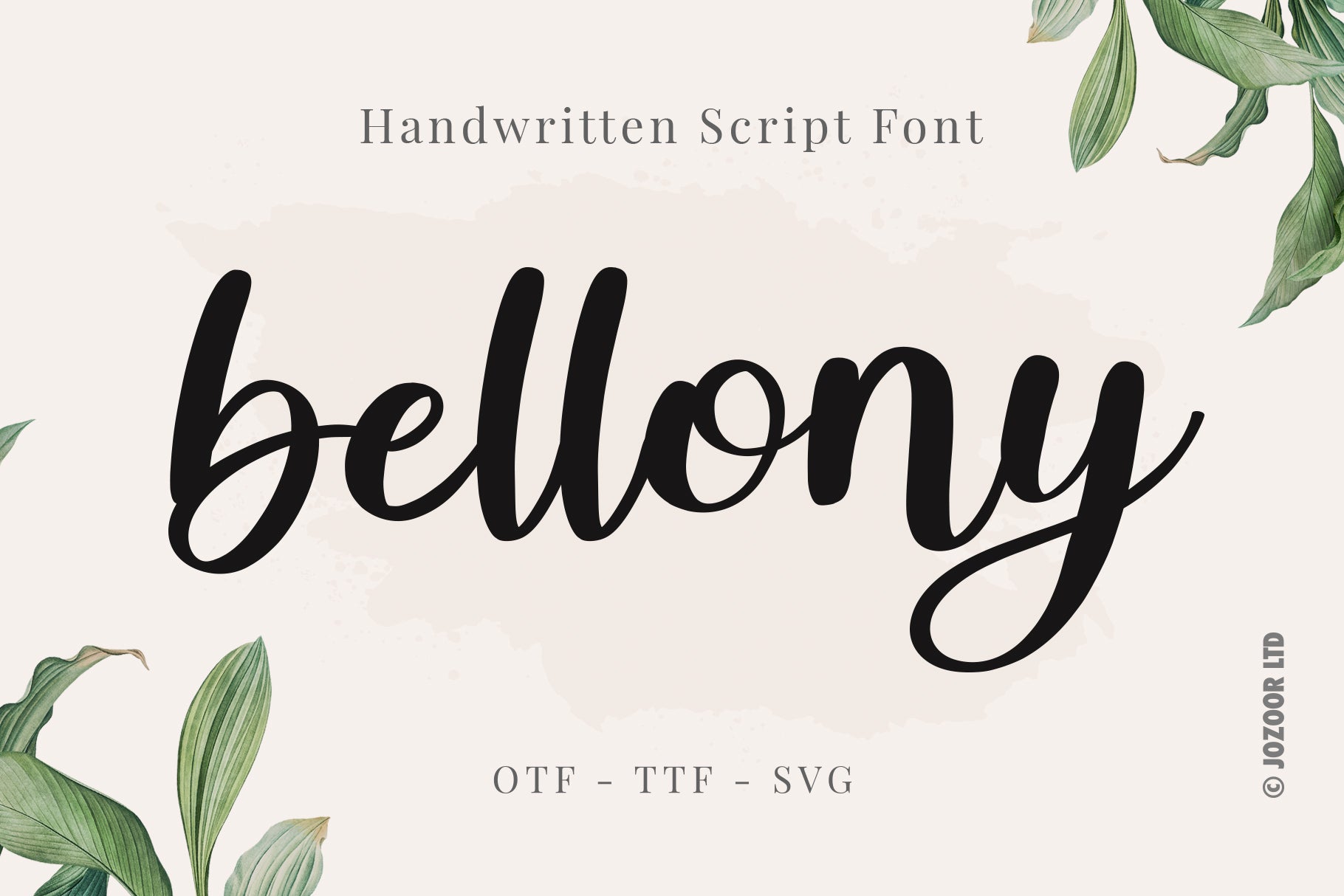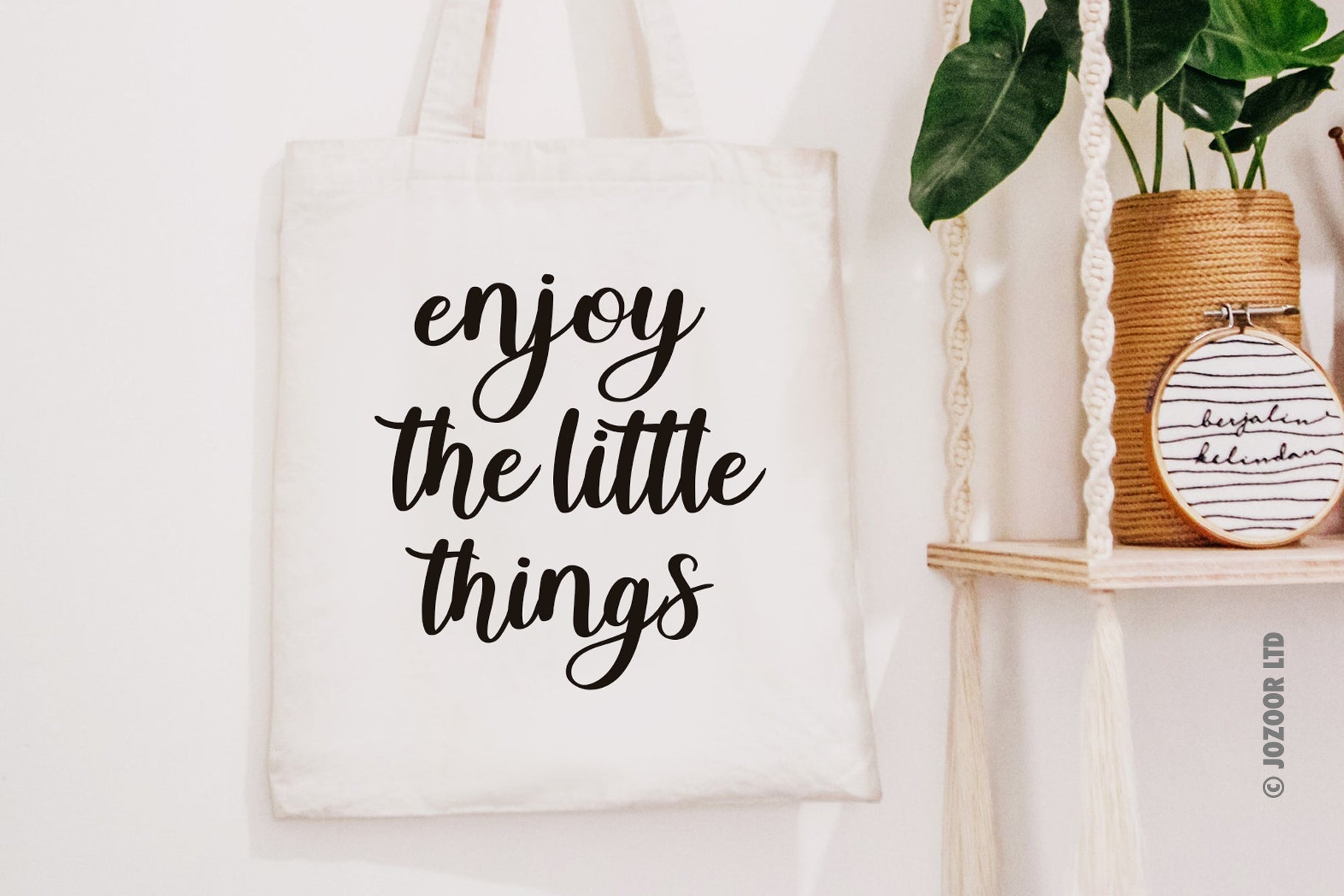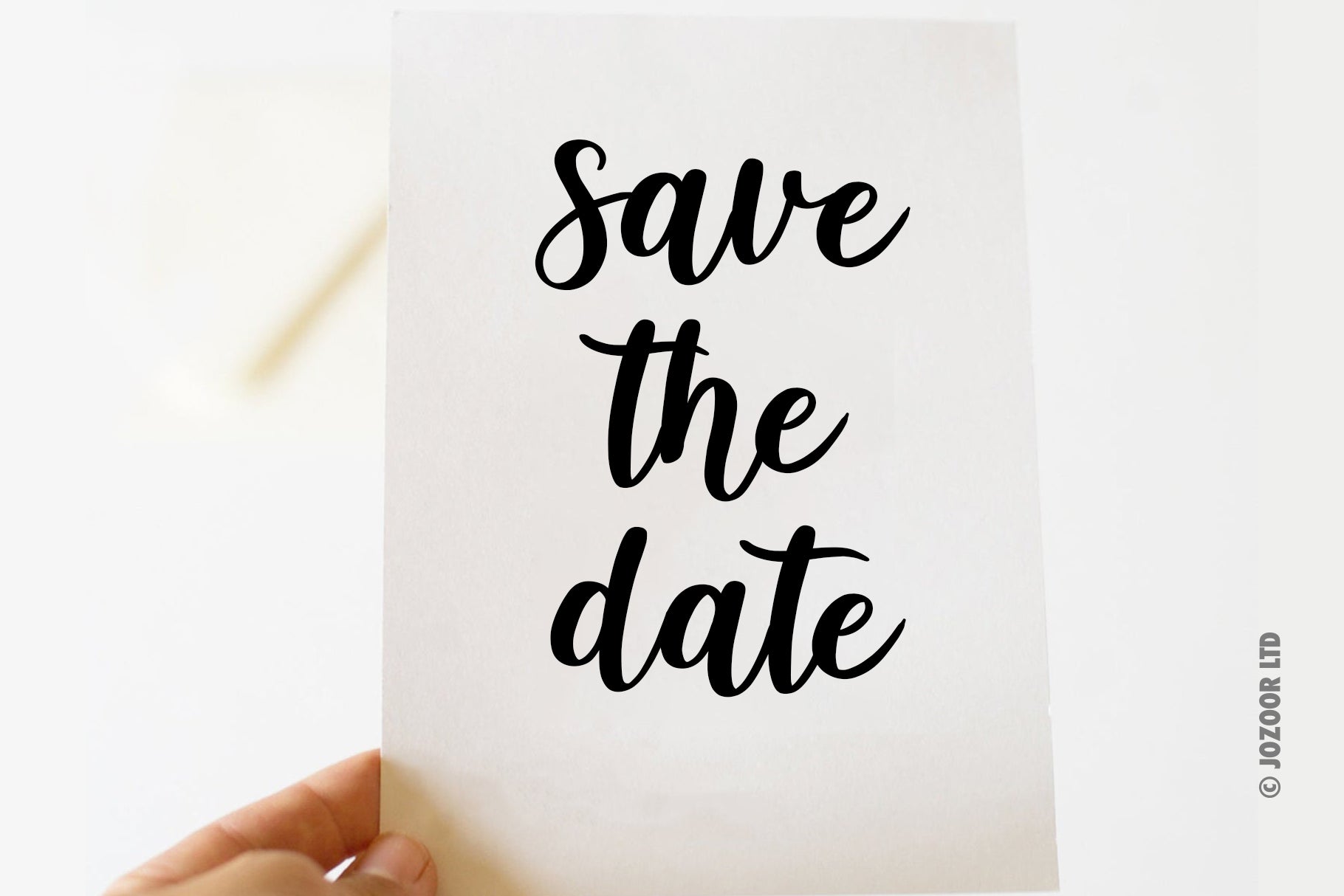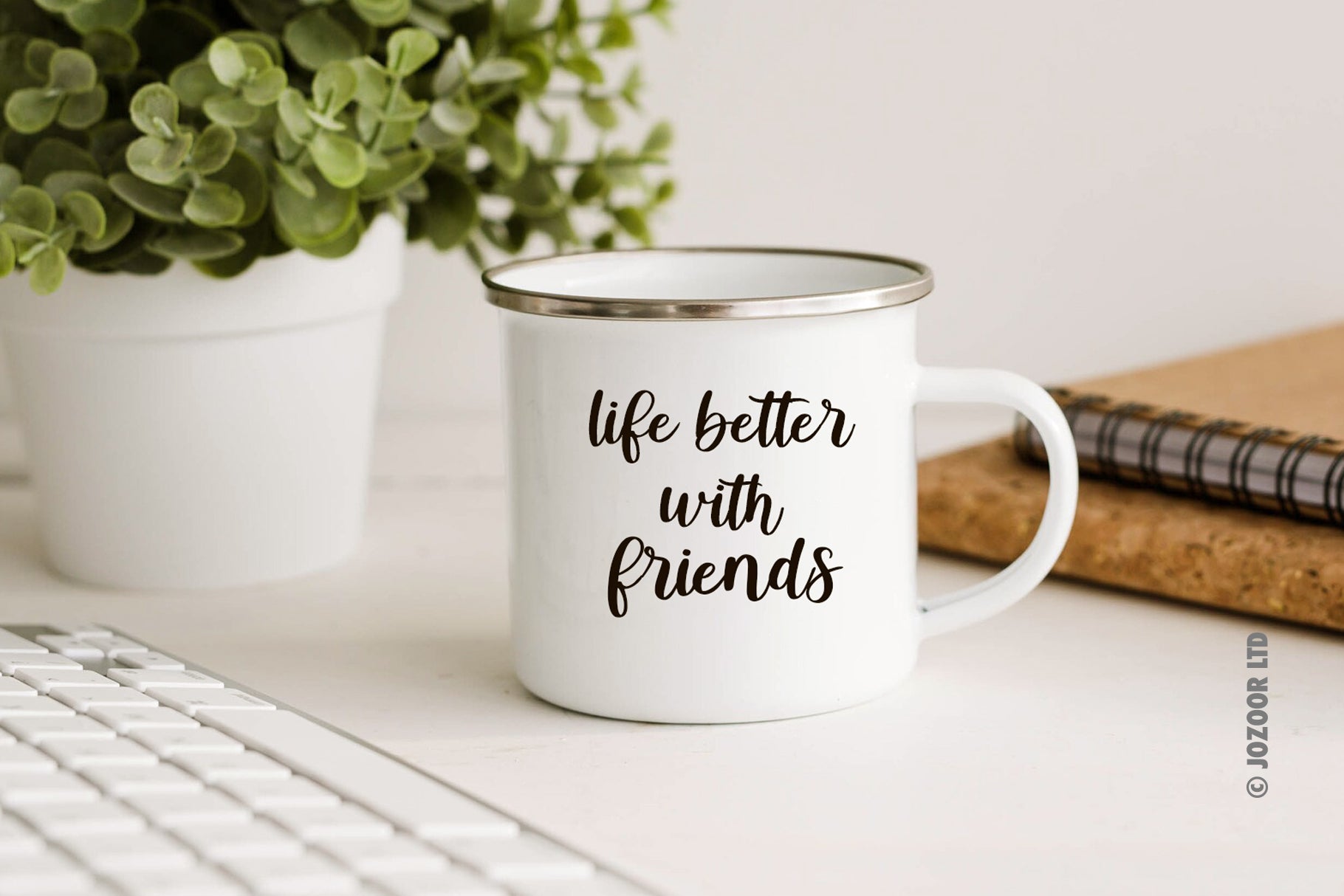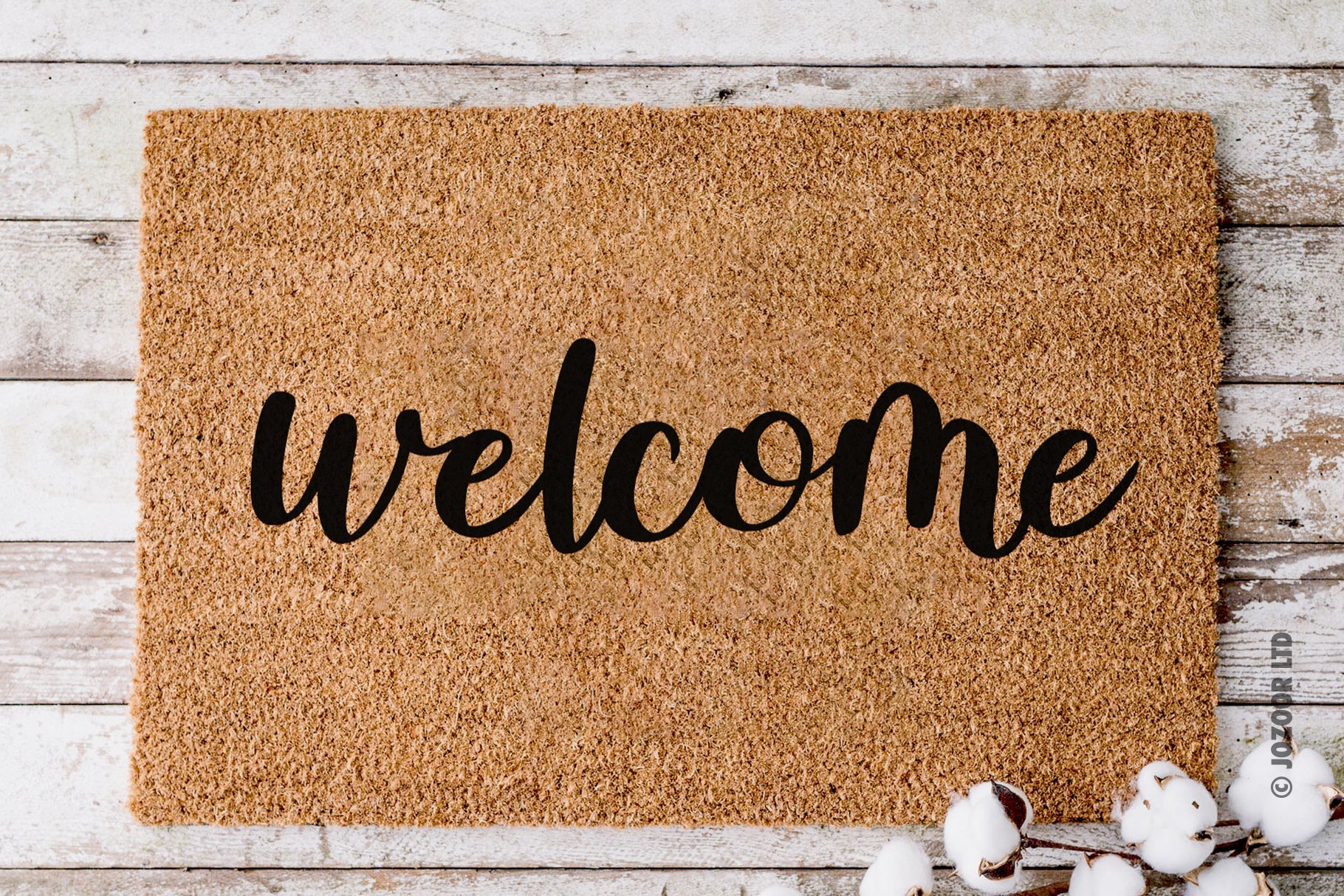
About Bellony – Handwritten Script Font
Bellony is a bouncy handwritten script font for wedding invitations, SVG designs, shirts, crafts, websites, farmhouse decor, Christmas designs, branding, logos, save the date cards, feminine branding, personal gifts cards, and more. You will get: OTF Font File. TTF Font File. SVG File. User’s Guide PDF file. Hope you enjoy, and happy designing 🙂 ♥ JOZOOR